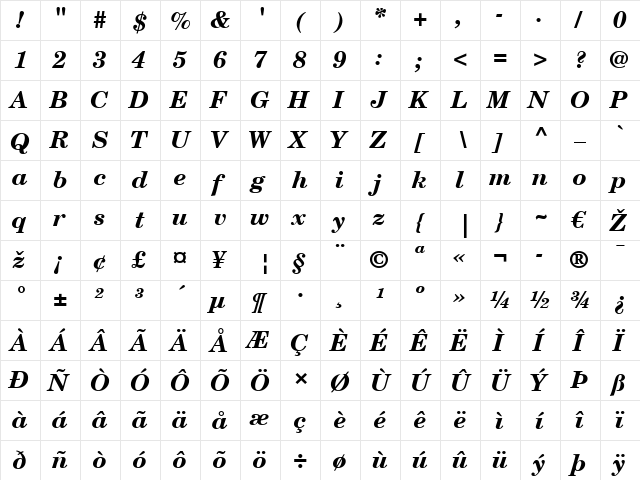
NewCenturySchlbk LT Bold Italic
Design Context for NewCenturySchlbk LT Typeface
NewCenturySchlbk LT is a composed and adaptable typeface that performs quietly and consistently across a wide range of design contexts. The dynamic lean of this cut emphasises speed and emphasis in any layout. Its bold stroke weight gives it real presence on the page.
Pro Tip: Use NewCenturySchlbk LT for emphasis, pull quotes, and subheadings where its slanted energy can add rhythm to the layout.